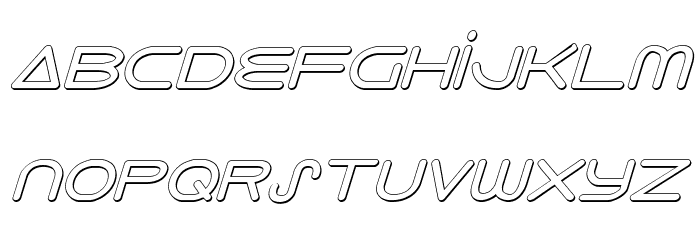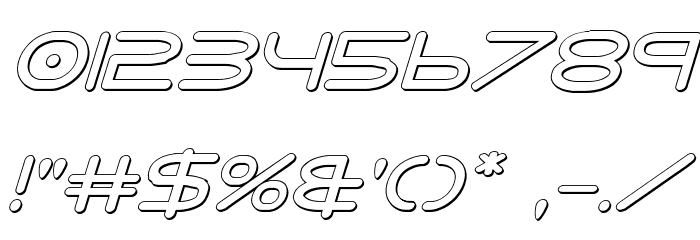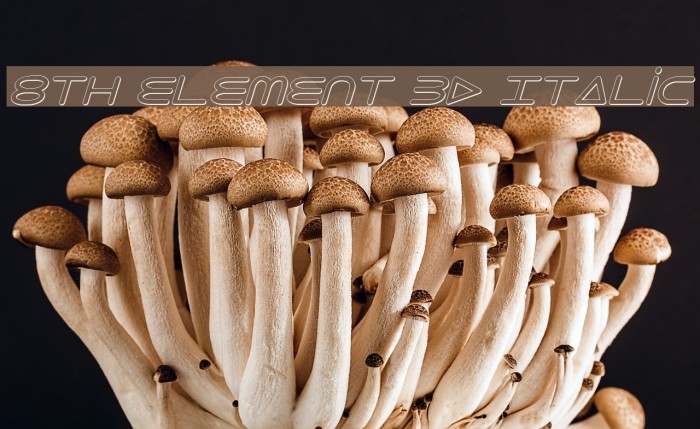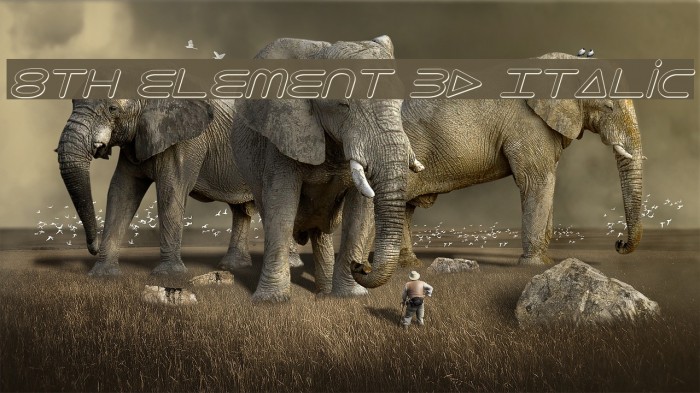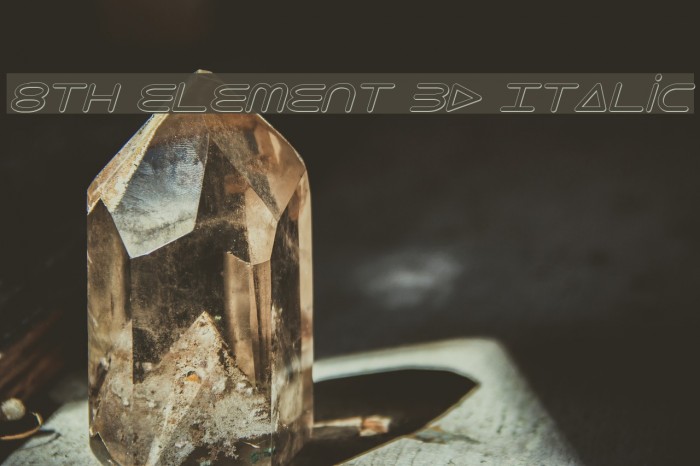
8th Element 3D Italic Font
This font features a futuristic and geometric design with a distinct 3D effect. The characters are outlined, giving them a hollow appearance, which enhances the three-dimensional illusion. The italic slant adds a dynamic and forward-moving feel, making it ideal for modern and tech-oriented designs. Each letter is crafted with precision, featuring sharp angles and smooth curves that create a sense of movement and energy. The font maintains a consistent line weight throughout, contributing to its sleek and streamlined look. Its unique style makes it stand out, perfect for projects that require a bold and innovative visual impact.
A futuristic, 3D outlined italic font with a geometric design.
- Proposed Projects: Ideal for tech branding, sci-fi posters, video game titles, and modern advertising.